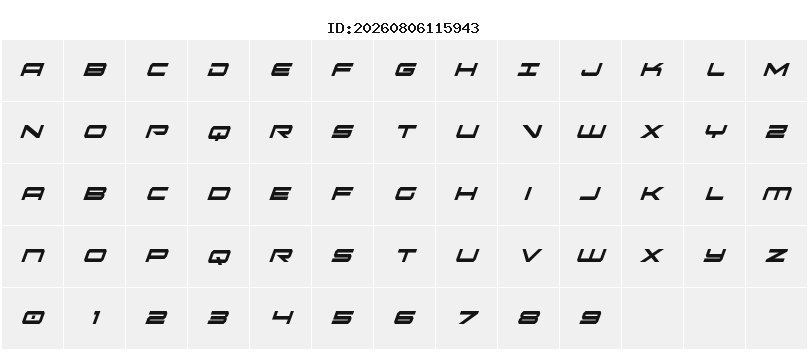
Oramac Extra-Condensed Italic Preview
• Font Name: Oramac Extra-Condensed Italic
• Font Style: Extra-Condensed Italic
• Full Font Name: Oramac Extra-Condensed Italic
About Oramac Extra-Condensed Italic.ttf
Oramac Extra-Condensed Italic.ttf is a modern, elegant sans-serif font designed for ultimate readability and visual harmony. Perfect for branding, headlines, web design, and print materials.